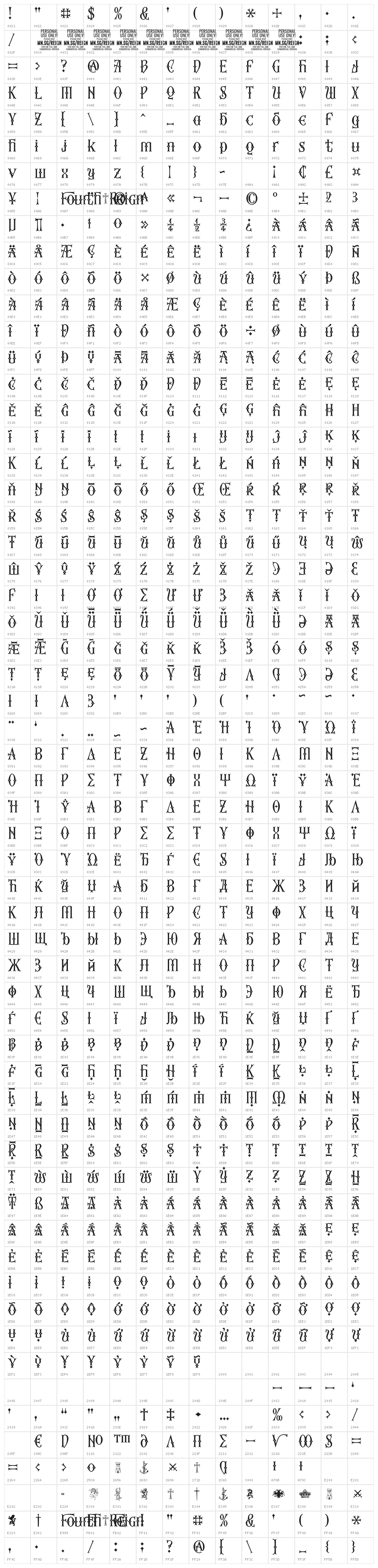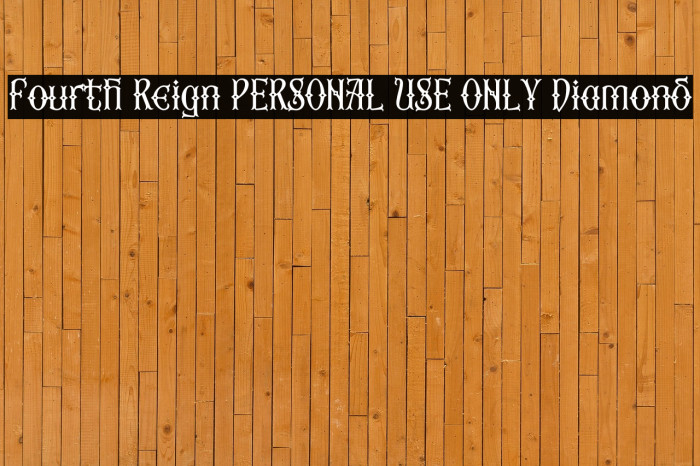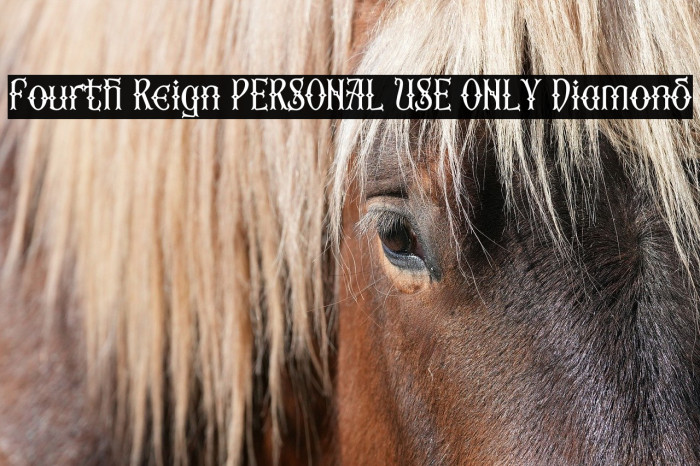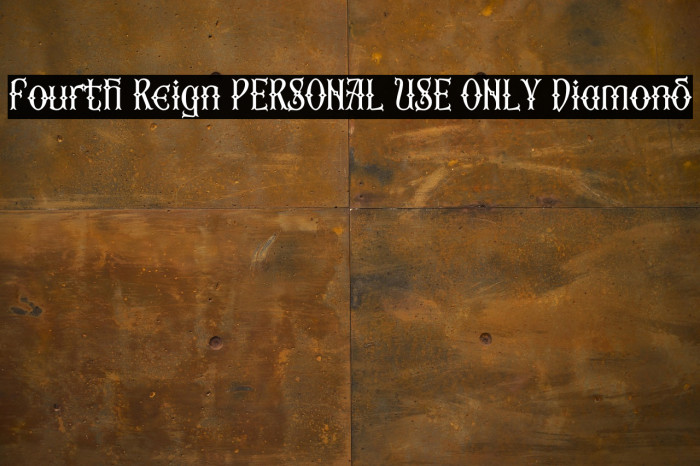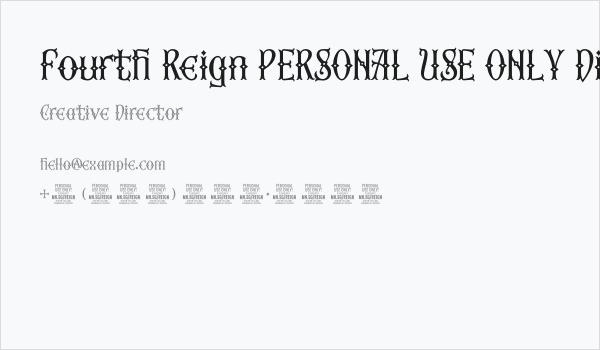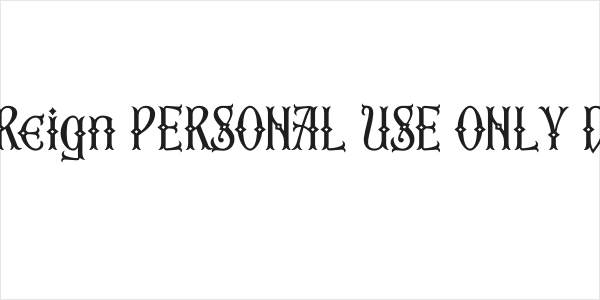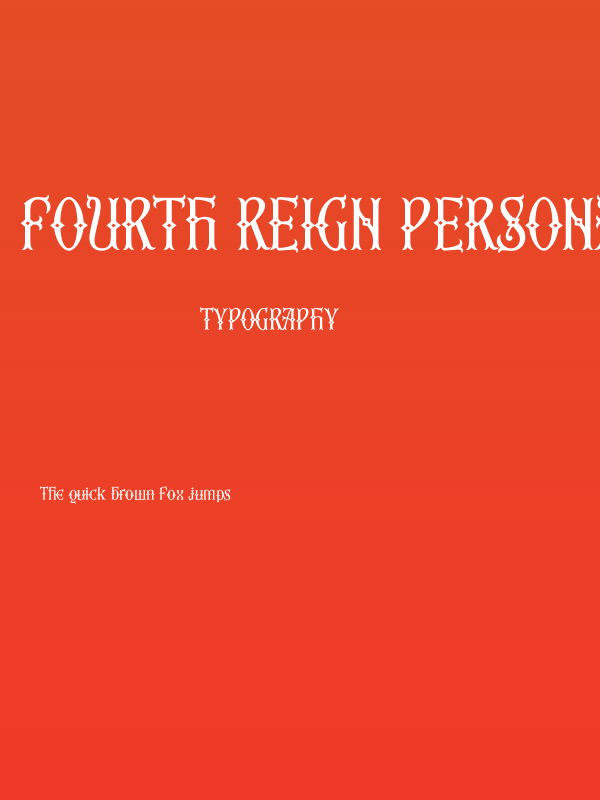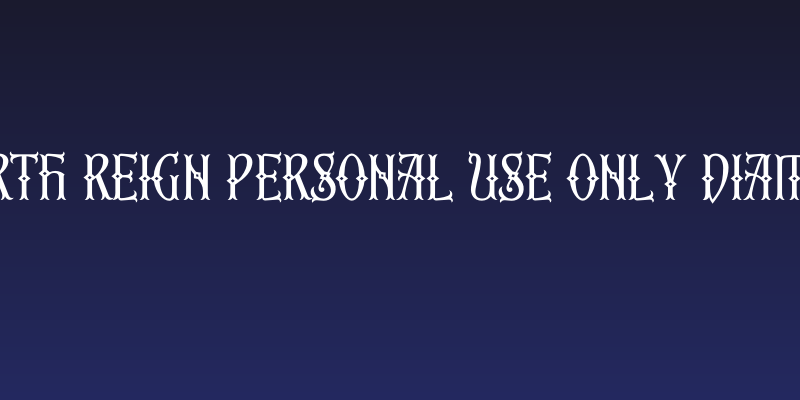
Fourth Reign PERSONAL USE ONLY Diamond Font
Fourth Reign PERSONAL USE ONLY Diamond Description
This font features a striking, decorative style with a medieval or gothic influence. The characters are adorned with diamond-shaped embellishments, giving them a unique and ornate appearance. The uppercase and lowercase letters maintain a consistent design, with sharp serifs and intricate details that enhance their visual appeal. The numerals and special characters follow the same elaborate style, making this font suitable for projects that require a touch of elegance and historical flair. The overall design is bold and eye-catching, perfect for creating a dramatic impact.
Overall StyleGothic, Decorative
Proposed ProjectsIdeal for invitations, posters, branding, and any project seeking a medieval or gothic aesthetic.